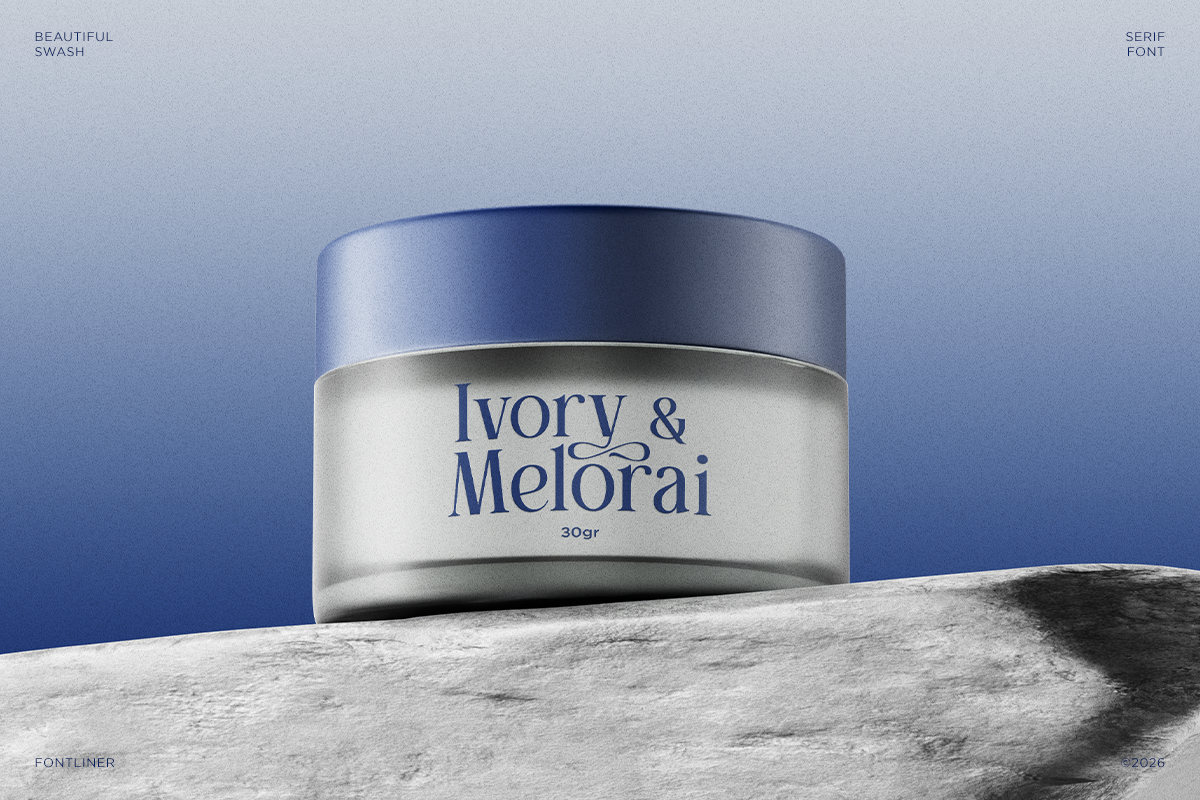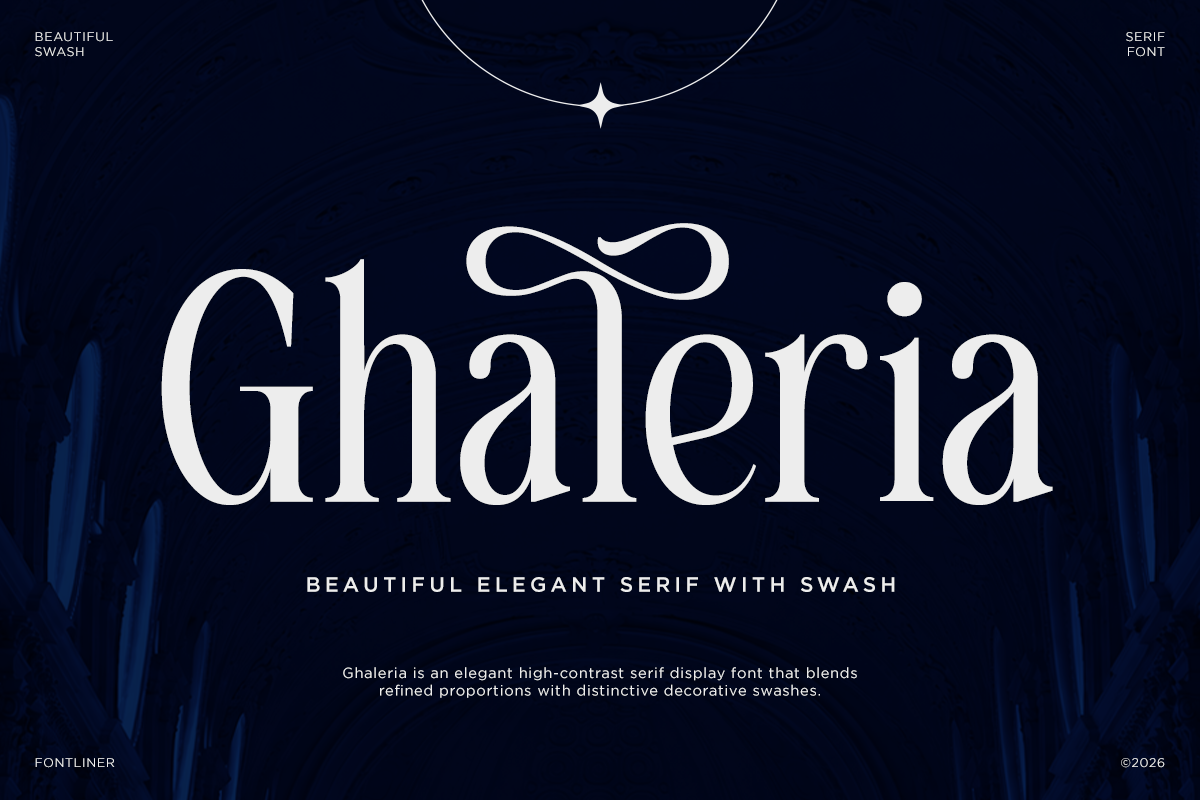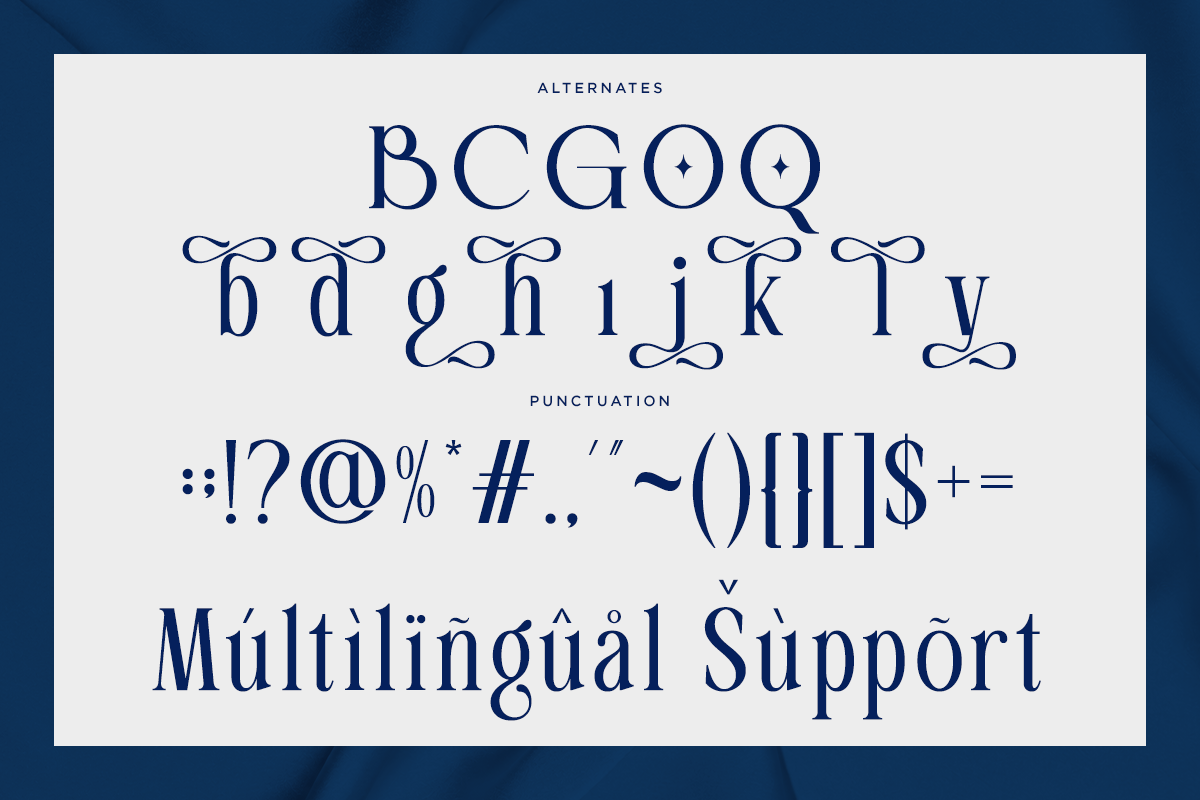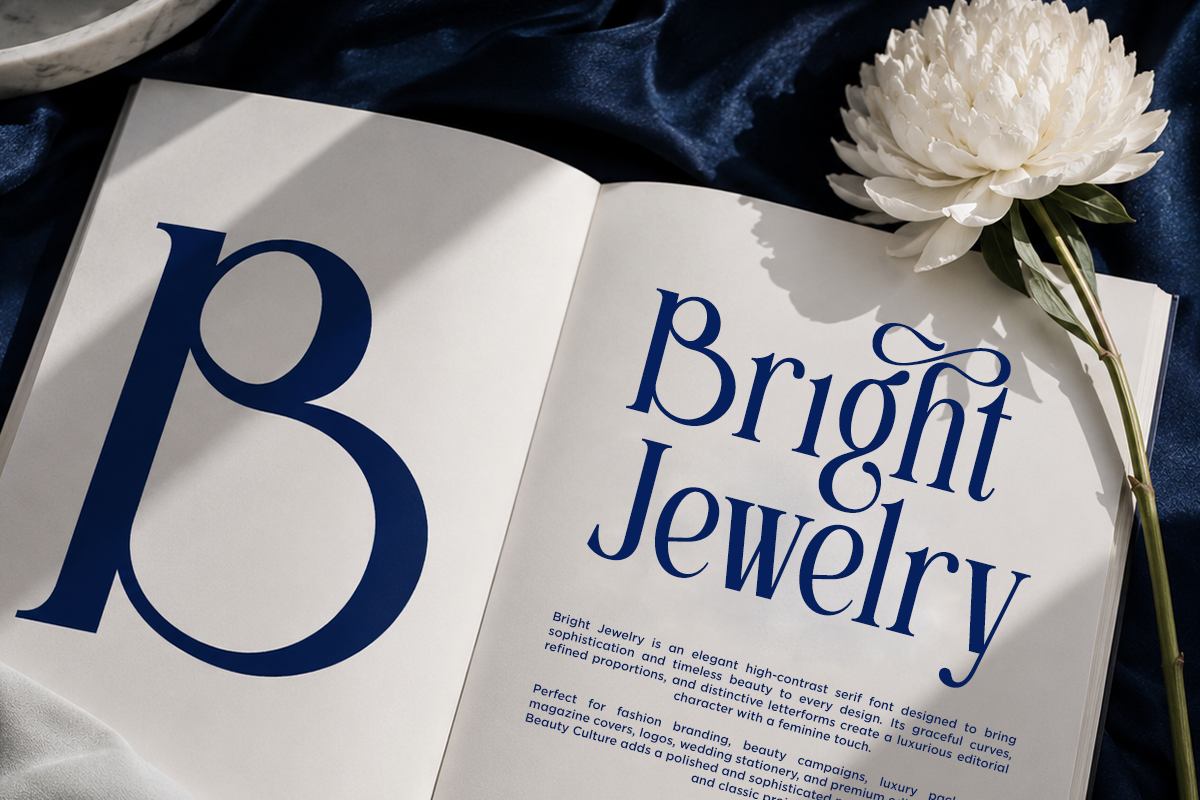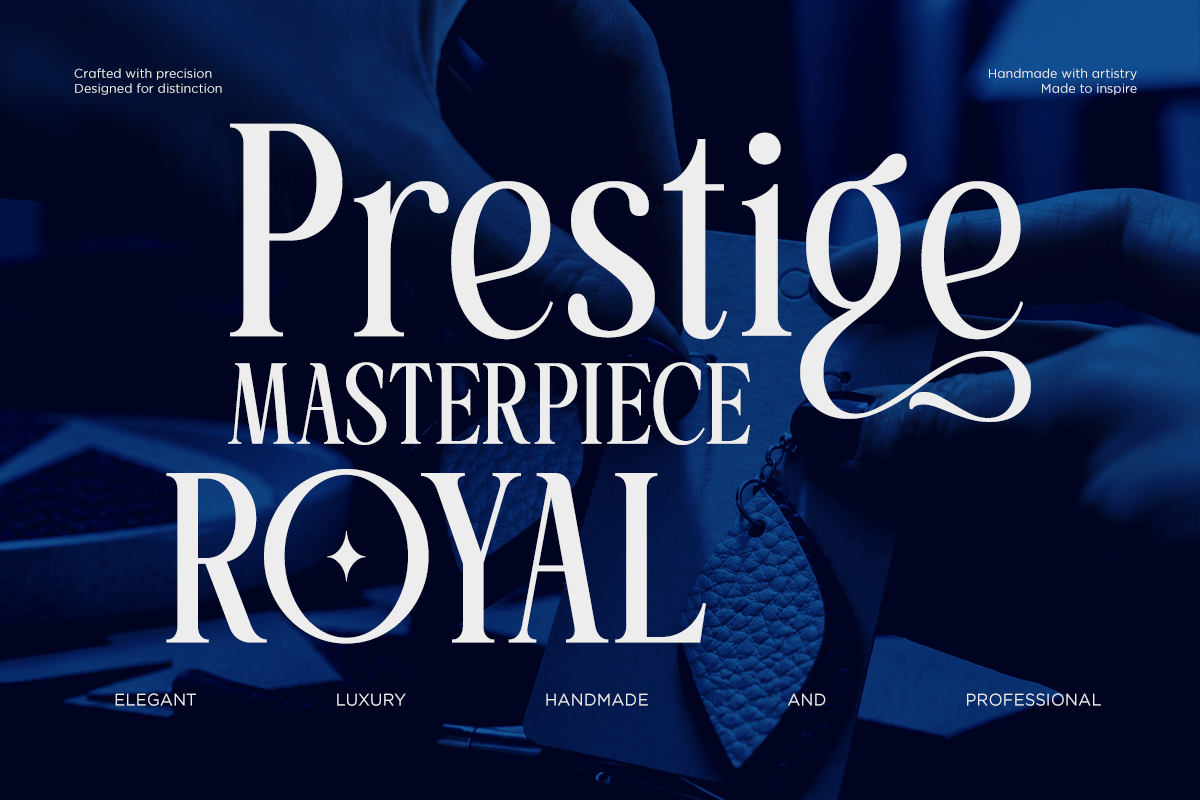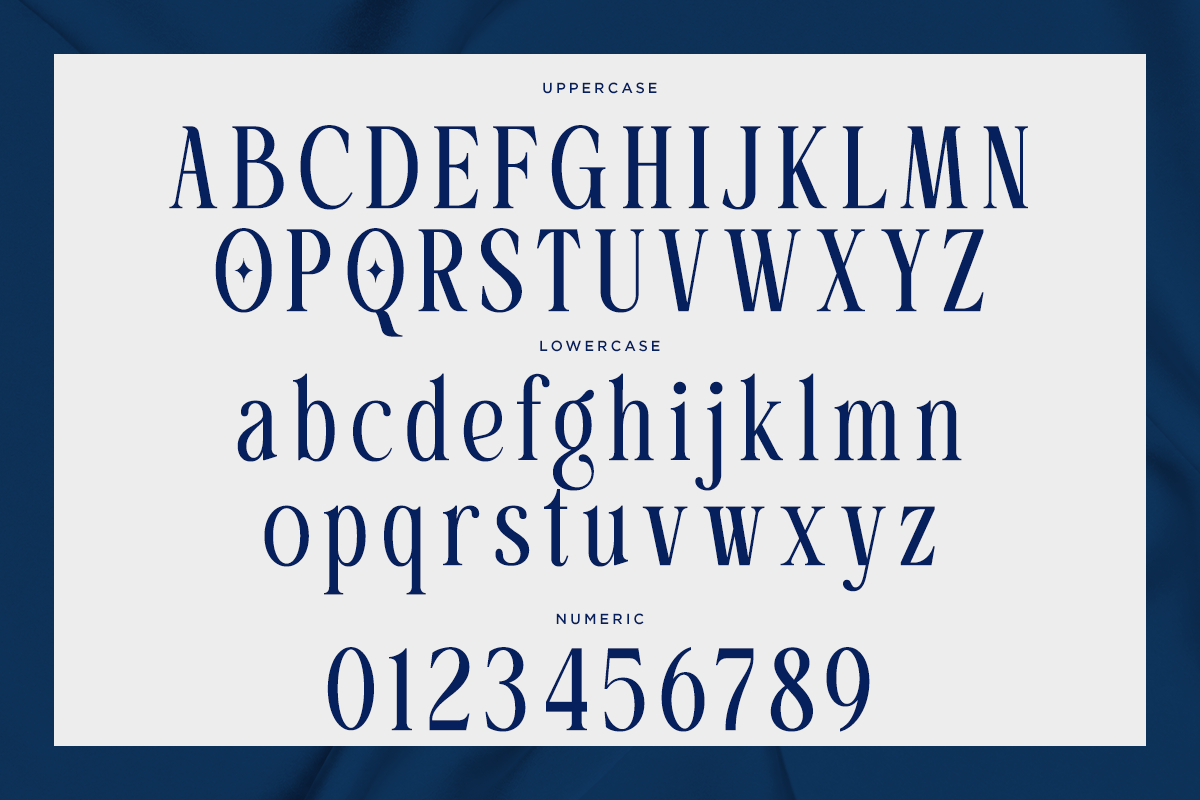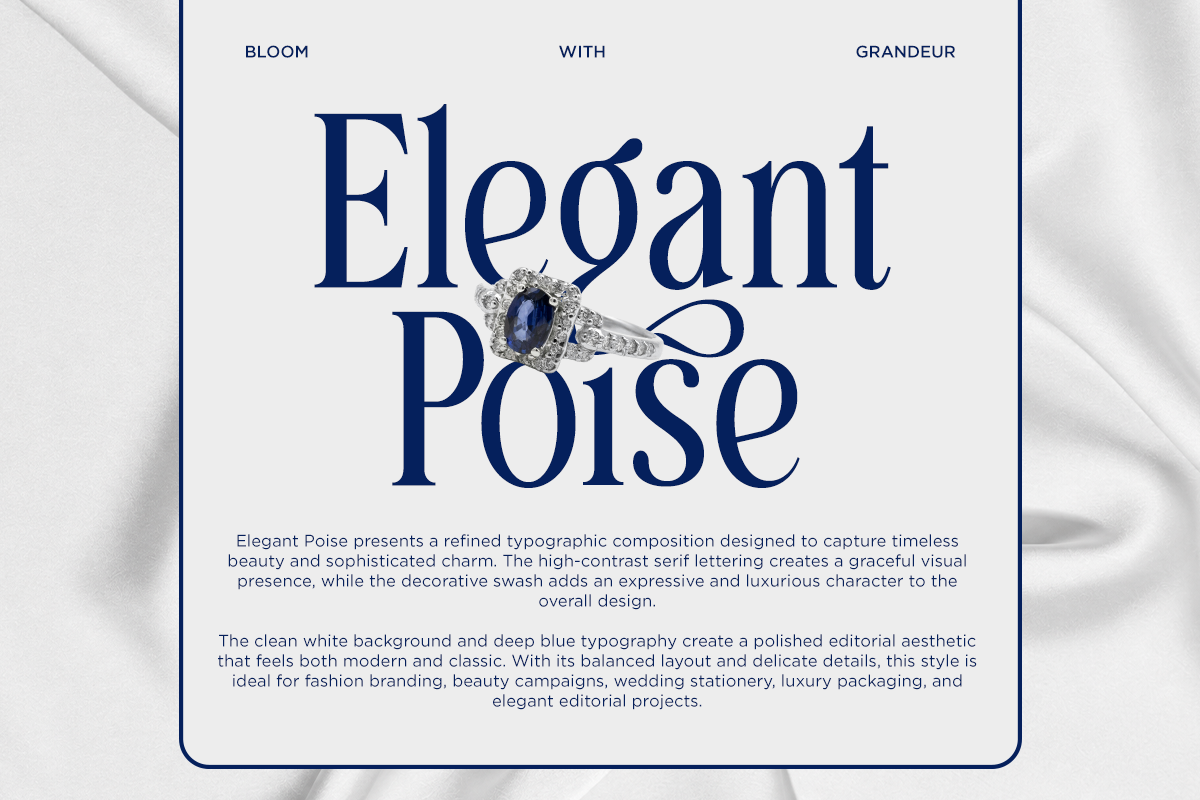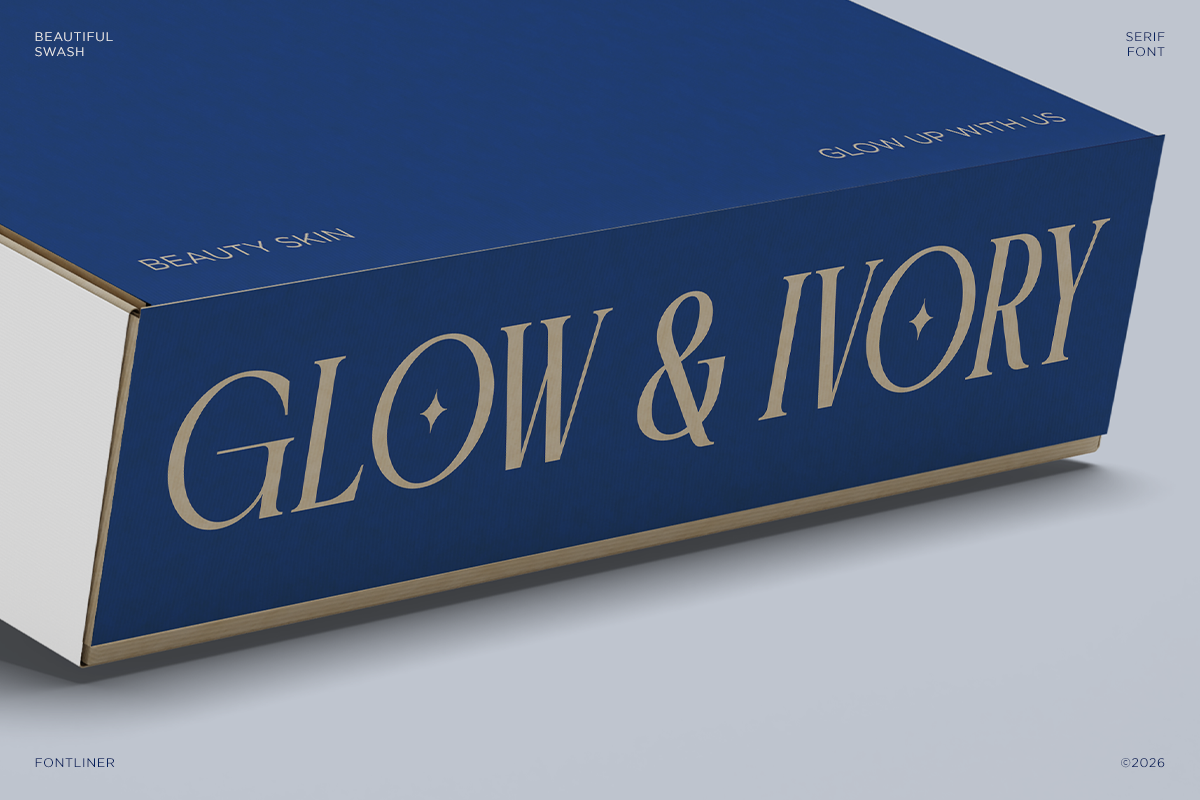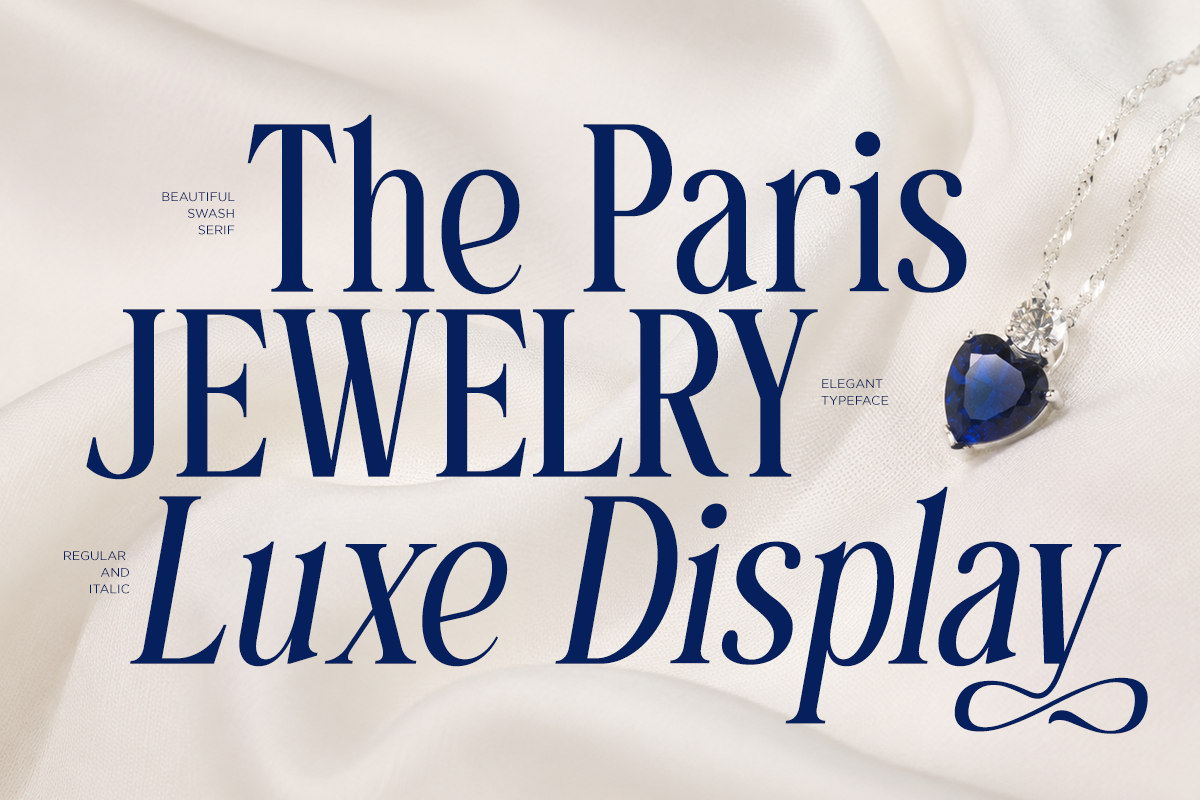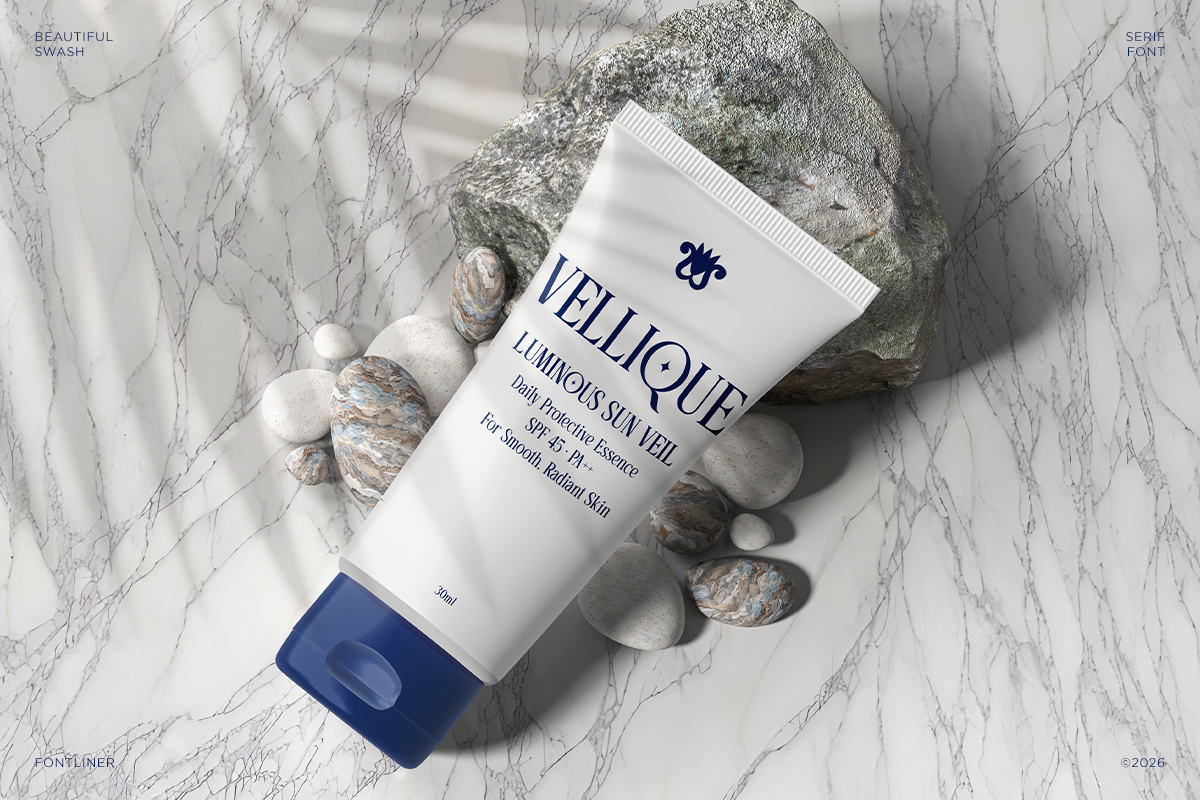
Beauty Elegant Serif Font - Ghaleria
Ghaleria is an elegant serif display font crafted with refined proportions, graceful curves, and sophisticated decorative swashes. Its high-contrast letterforms create a luxurious and timeless aesthetic that works beautifully for premium visual identities.
Designed for fashion, jewelry, beauty, luxury branding, editorial design, and premium packaging, Ghaleria adds an elevated and sophisticated touch to every composition. Its distinctive swashes bring an expressive and glamorous character to headlines and display typography.
Perfect for logos, magazine covers, invitations, product packaging, beauty campaigns, wedding stationery, signage, social media graphics, and luxury brand identities. Ghaleria is a versatile choice for designers looking to create an elegant, polished, and memorable visual presence.
Regular and Italic
Special Alternates
Number, Symbol, and Punctuation